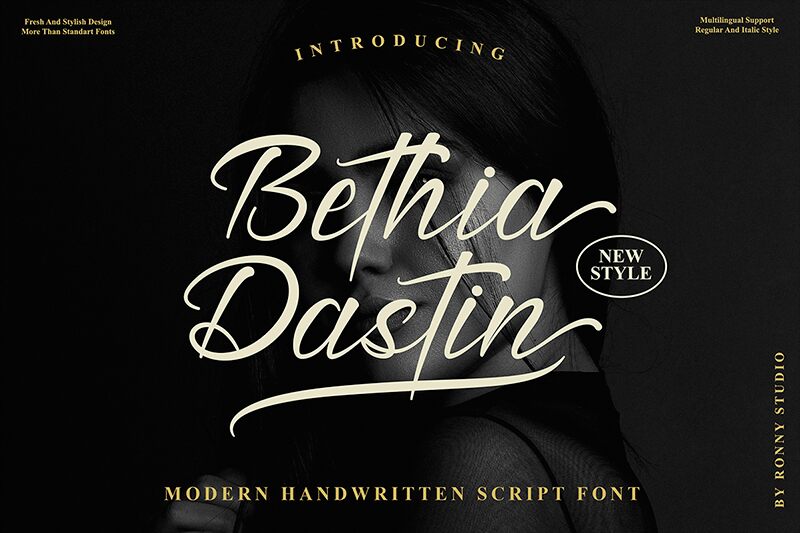
Bethia Dastin Italic
Introducing Bethia Dastin Italic, a light and elegant calligraphy font designed by Ronny Rizki Jaya. Perfect for creating eye-catching titles and branding projects, Bethia Dastin Italic is sure to bring a unique, creative touch to any design.